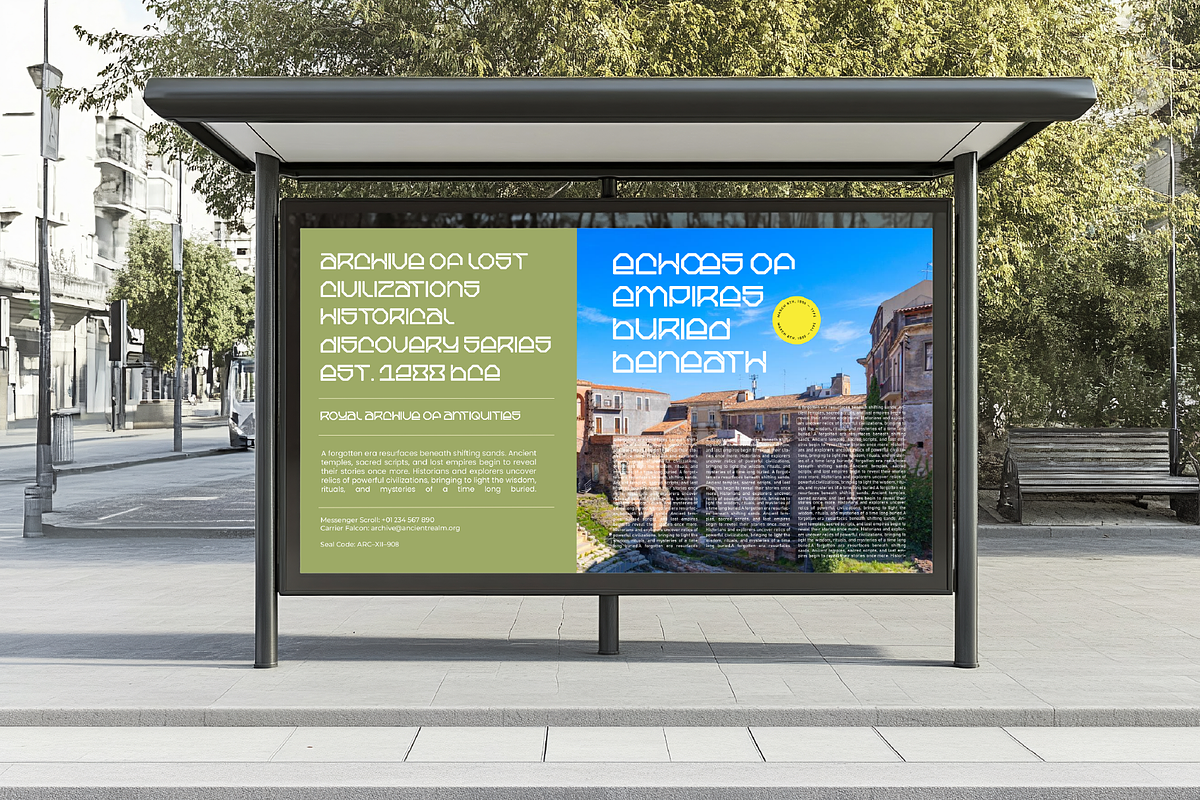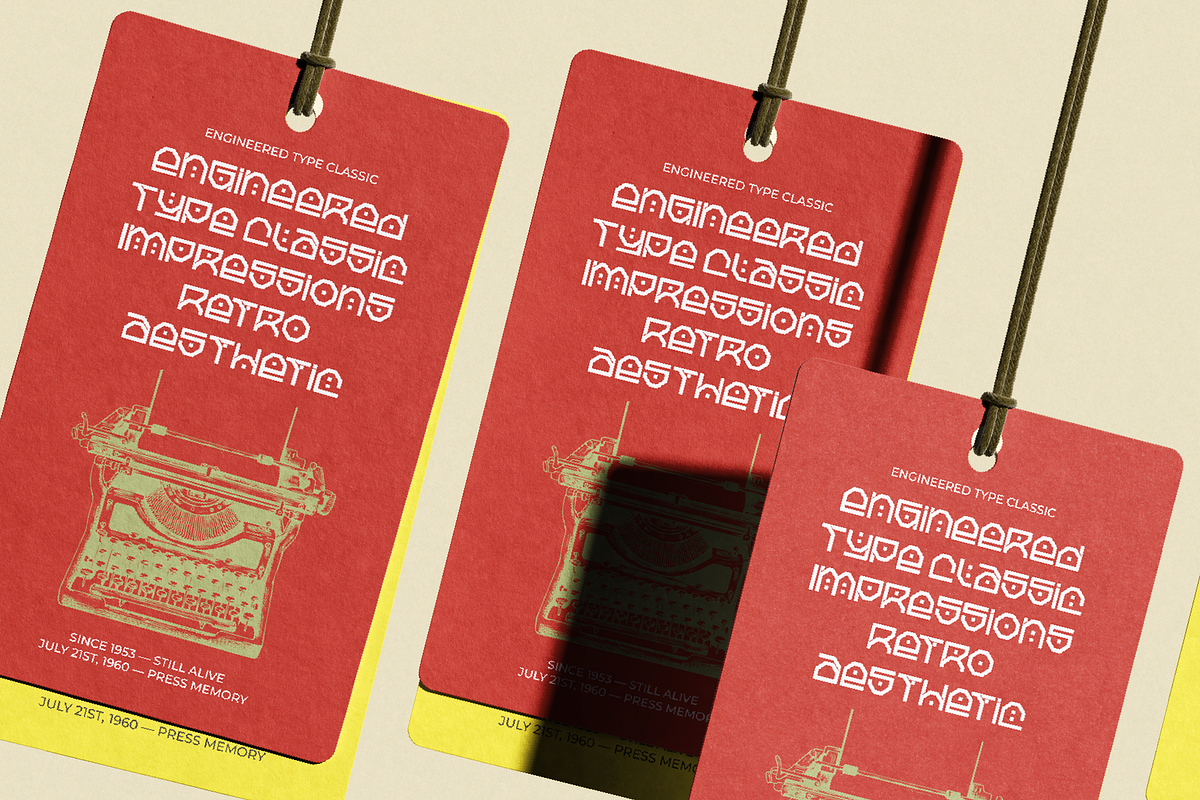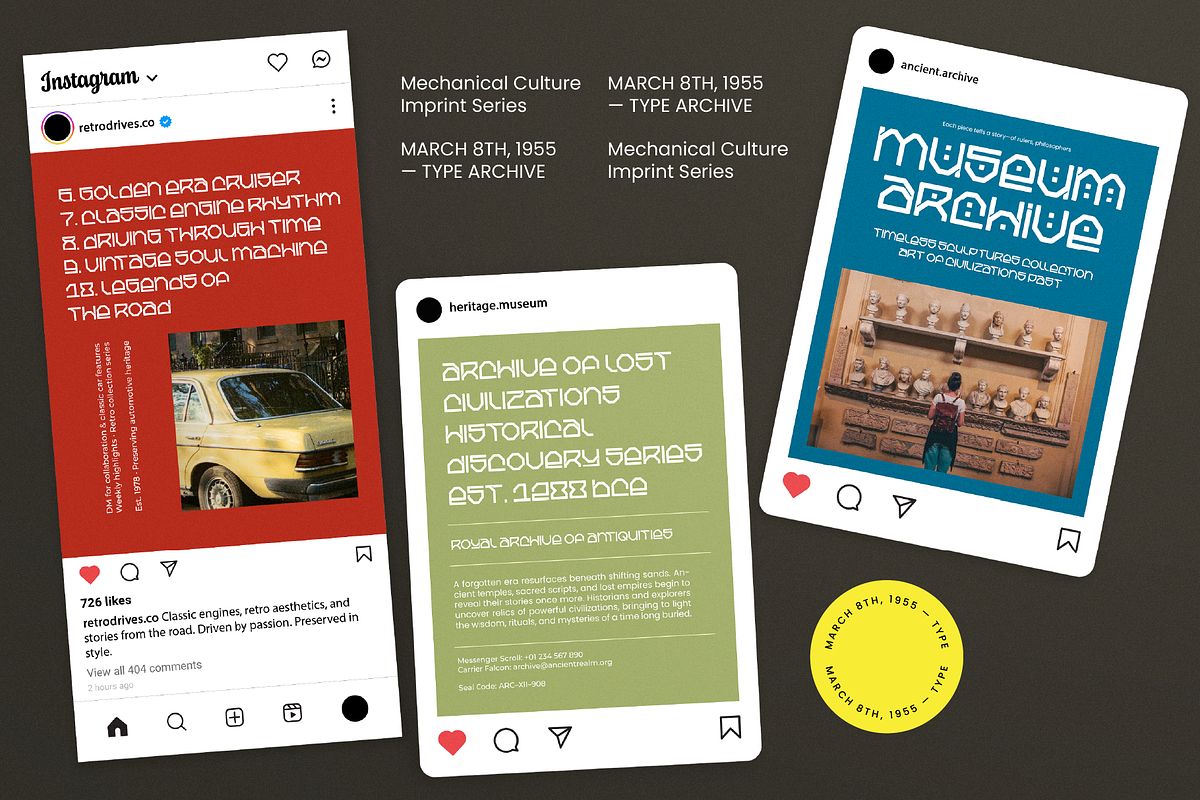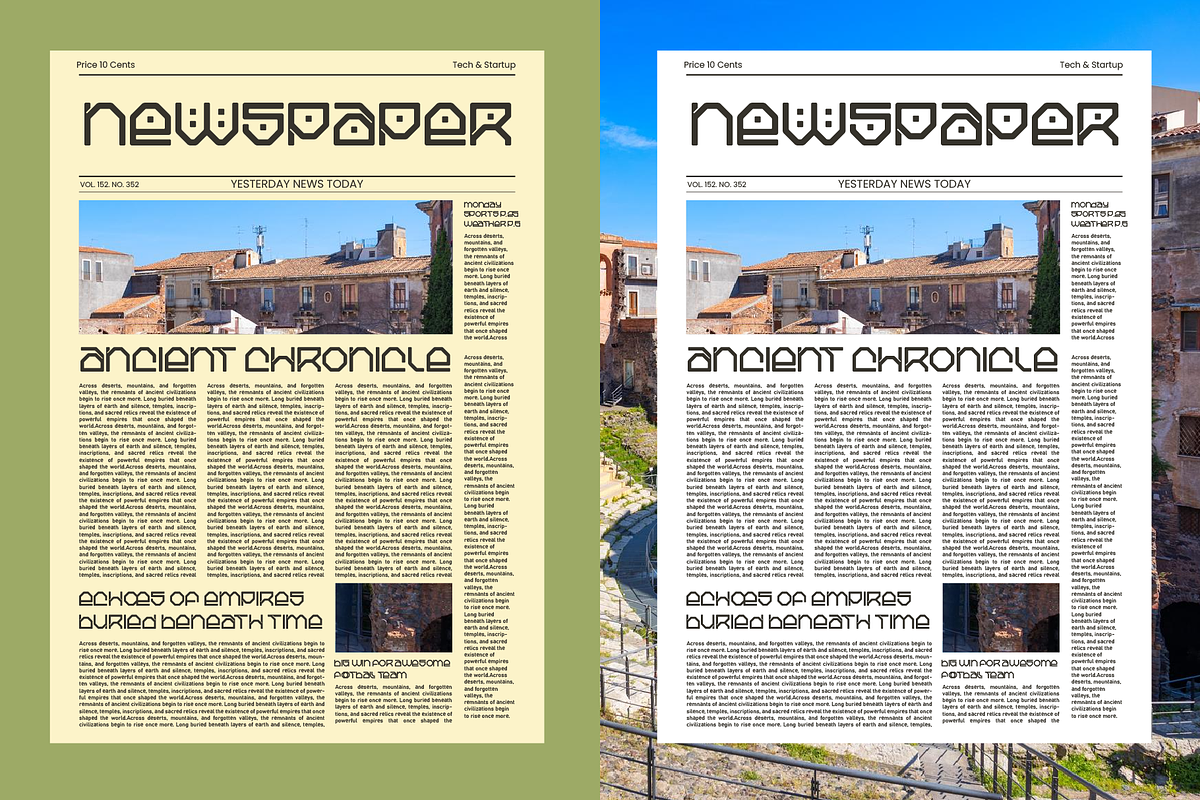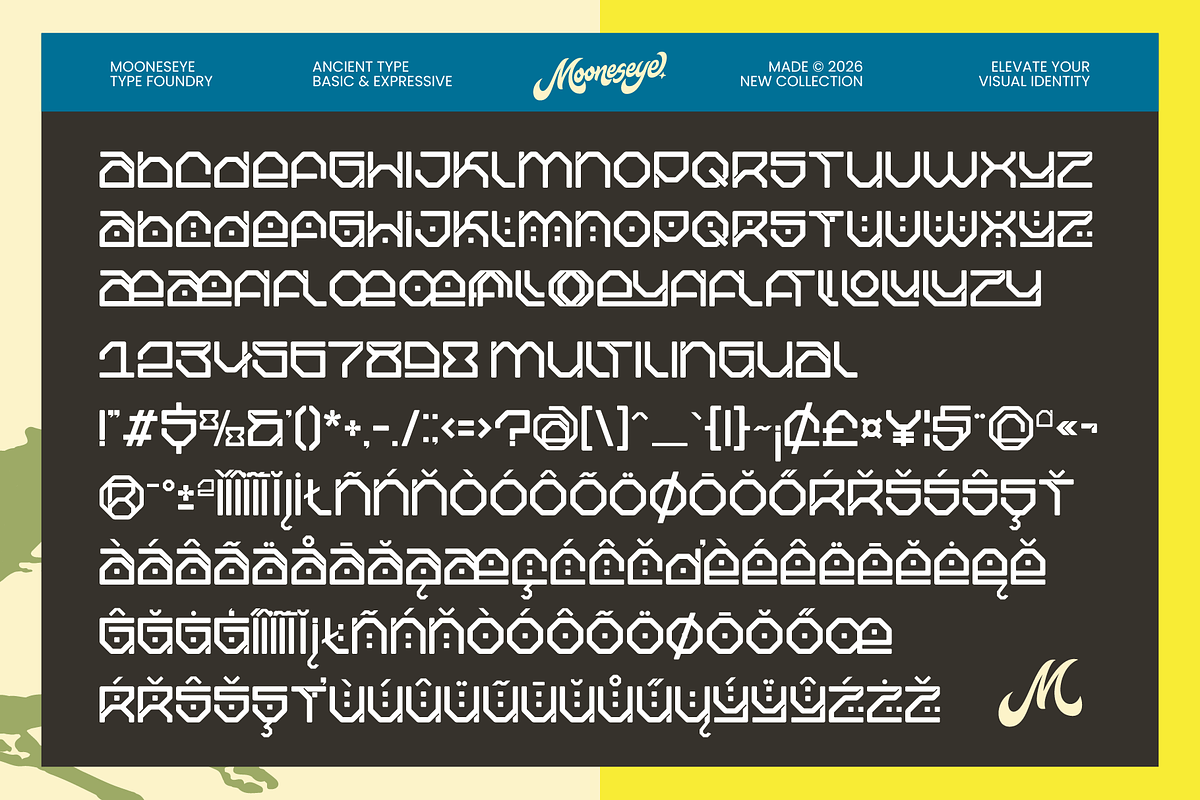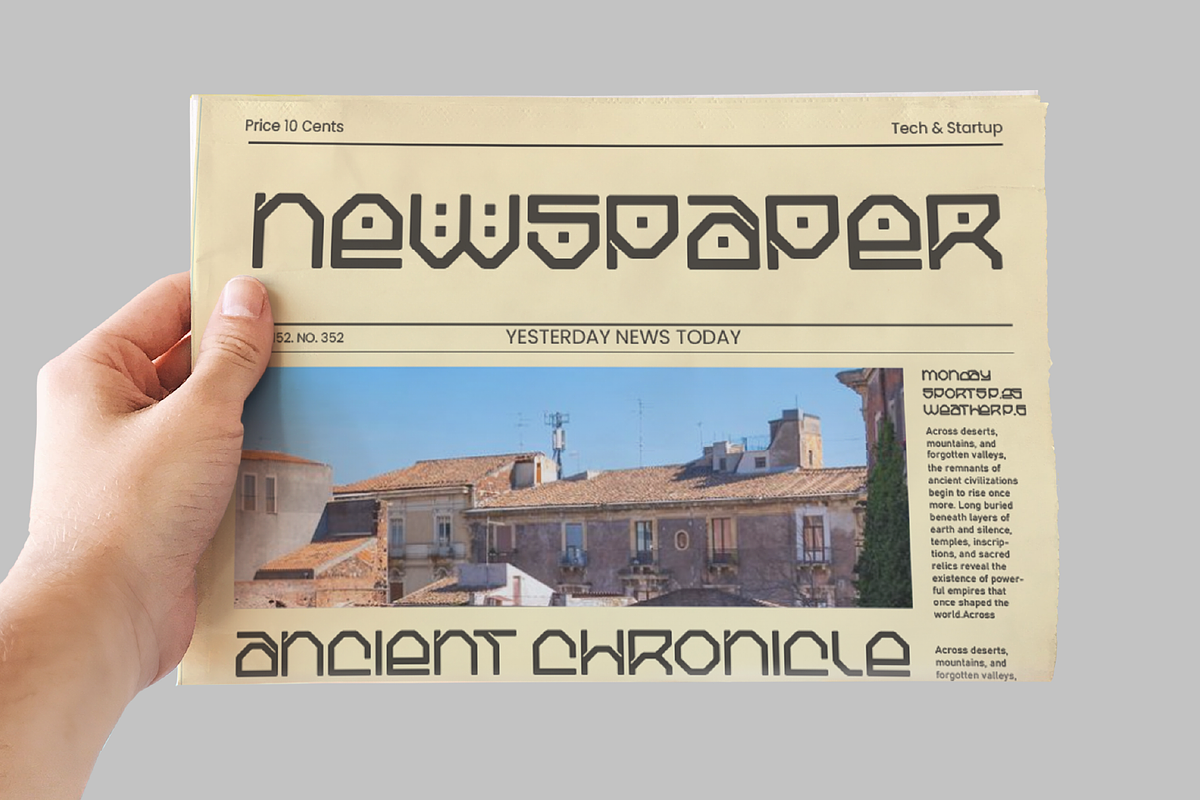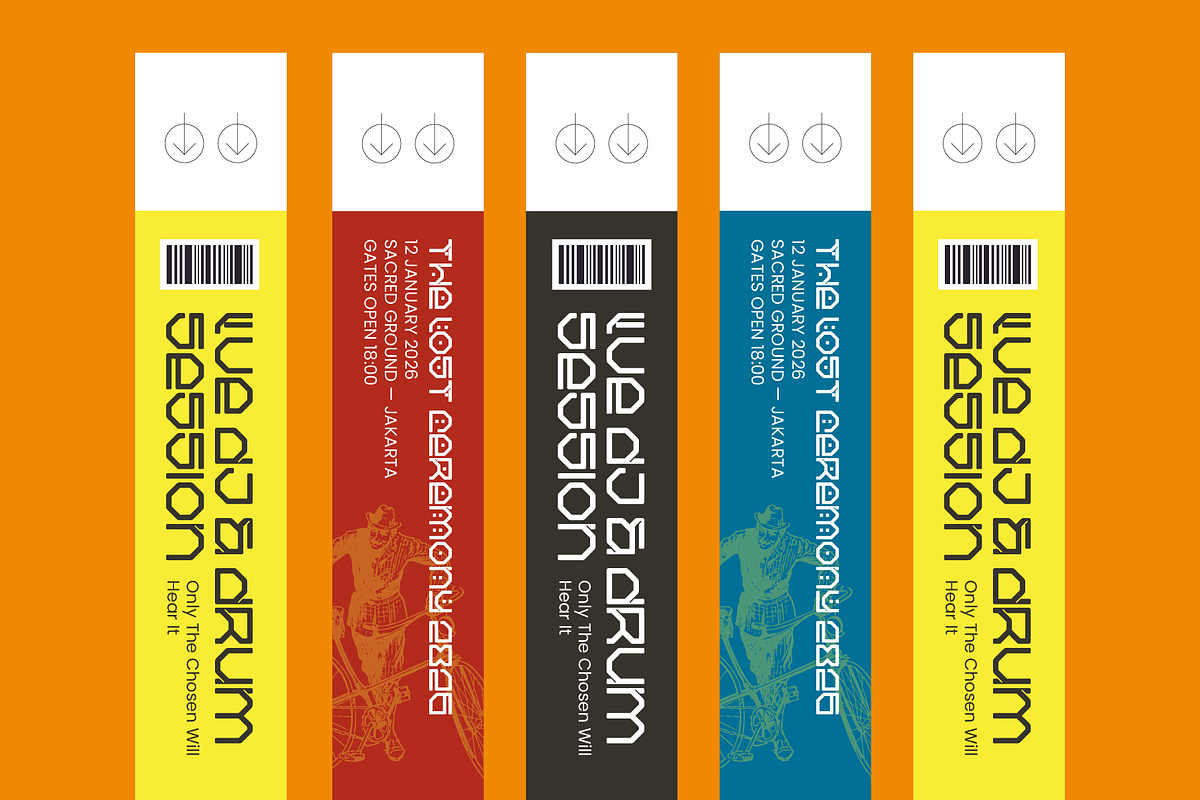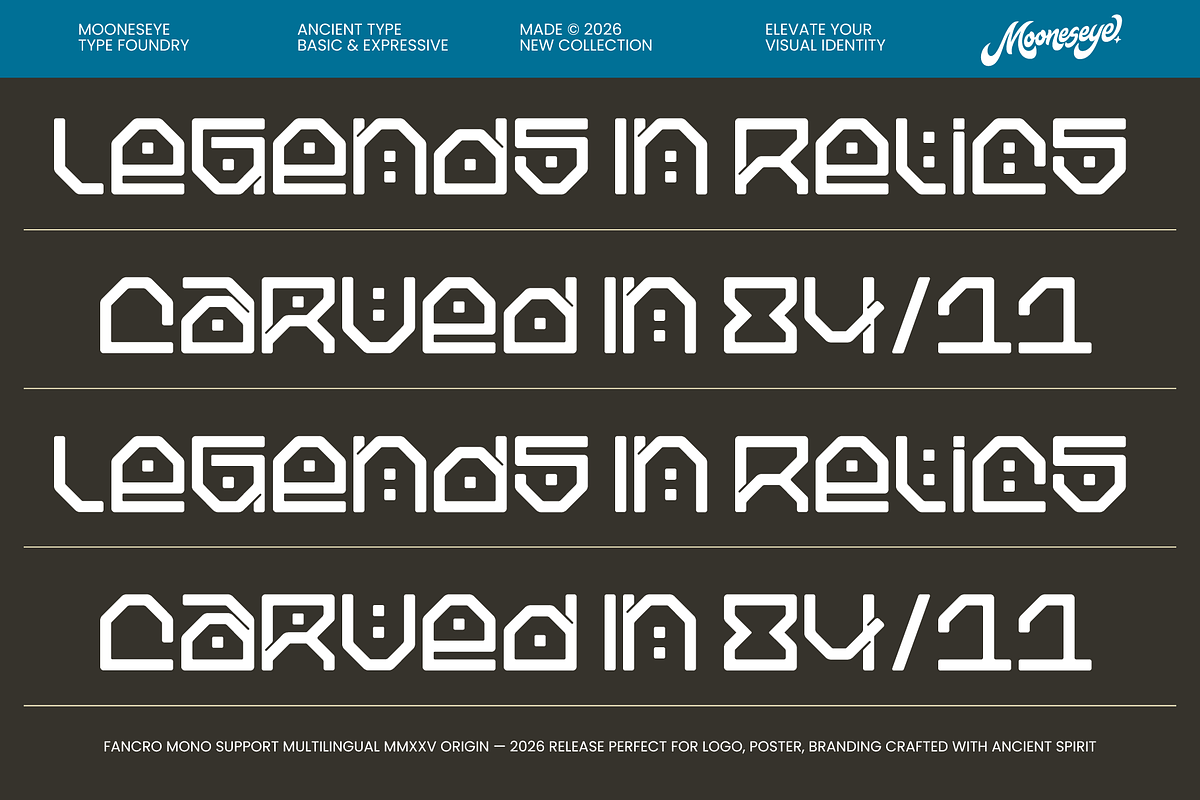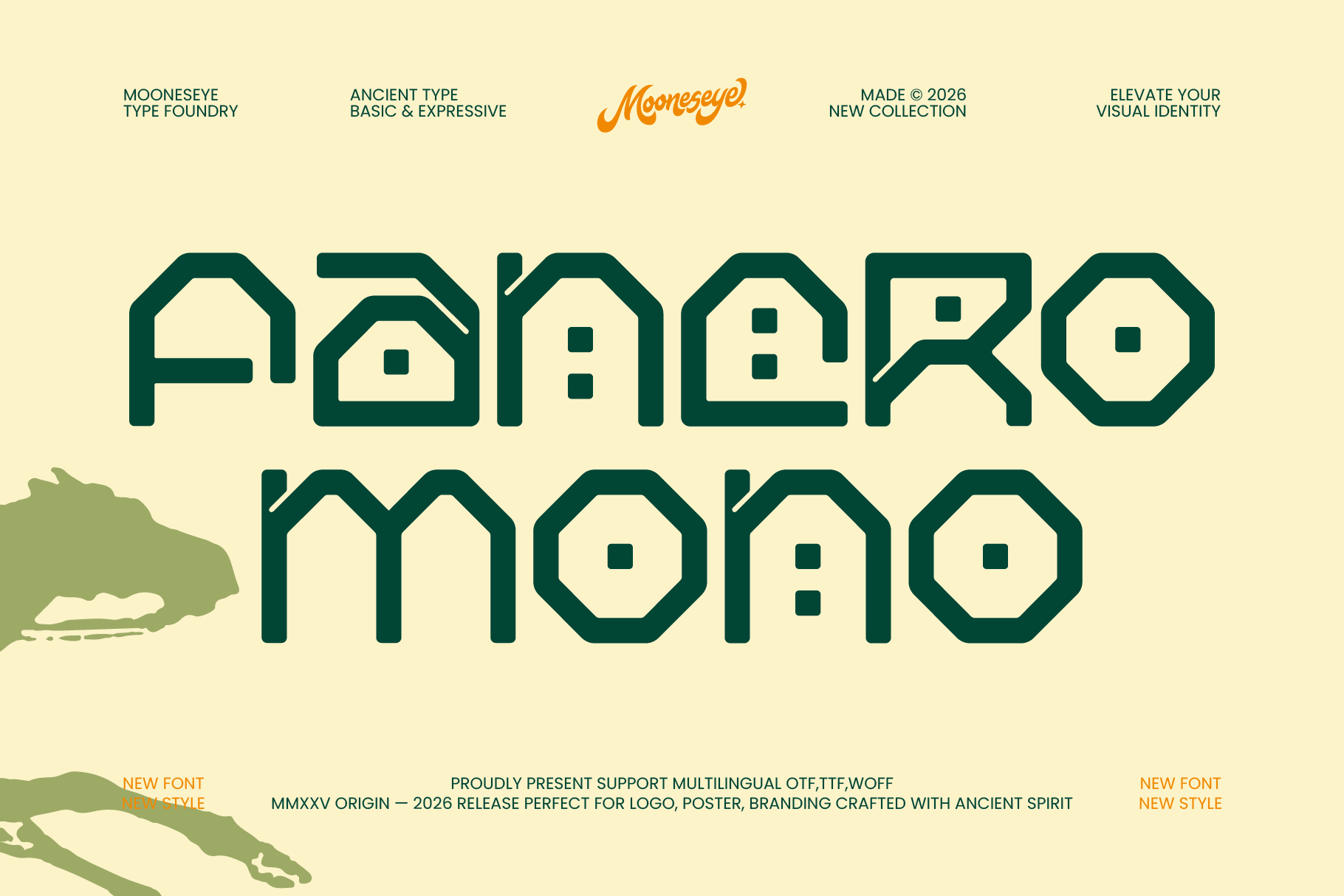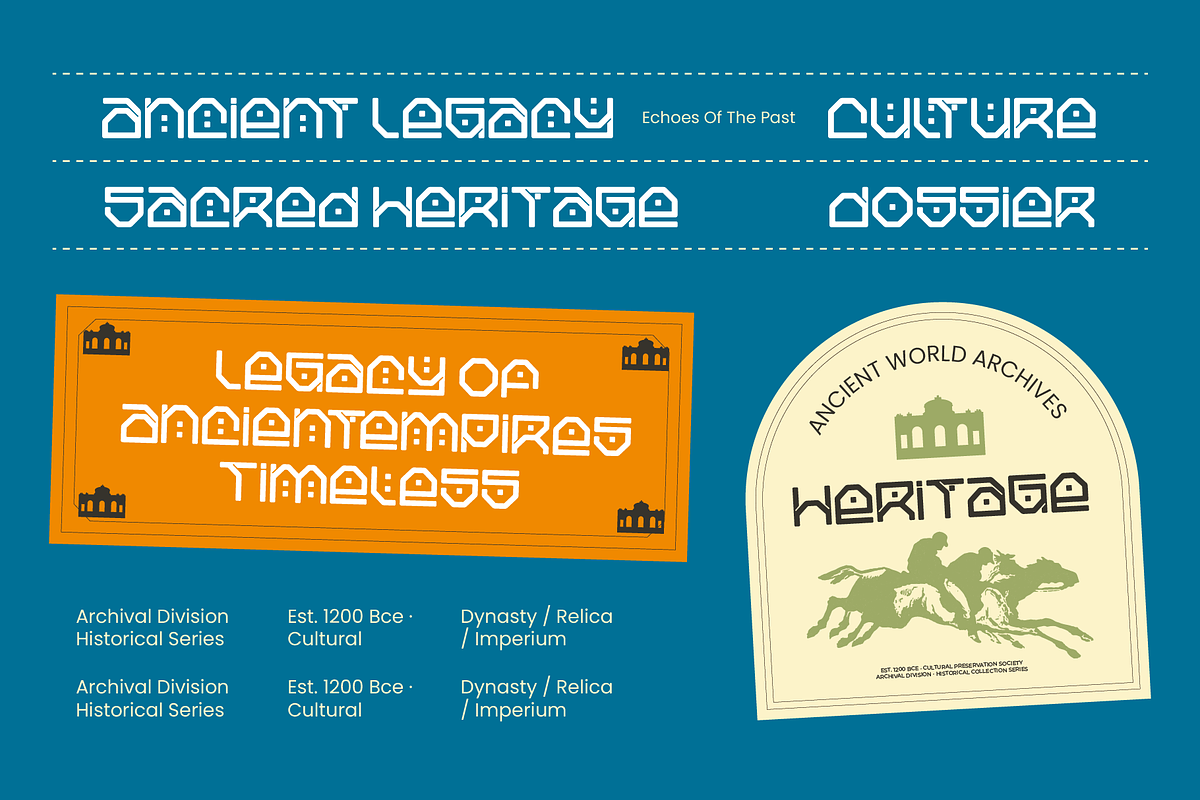
Fancro Mono - Ancient Display Font
Fancro Mono is a beautiful paradox—an experimental monospaced display font built with the soul of an ancient monument. Its rigid, blocky architecture utilizes clean, structural planes and sharp angles, giving every letter an immediate sense of weight and visual permanence. Look closely, and you will see characters shaped like structural icons or ancient dwellings, complete with unique internal dot accents that mimic mysterious hieroglyphs or runic markings.
Don't let its monolithic weight fool you. As a high-value hybrid typeface, Fancro Mono holds up beautifully in dense paragraphs, bringing a striking, editorial texture to small-scale body text. It is built to stand out on lifestyle newspaper covers, artisanal clothing tags, cultural exhibit signs, and raw festival passes. Whether you are aiming for a classic museum archive look or a modern brutalist layout, Fancro Mono turns simple words into instant works of art.